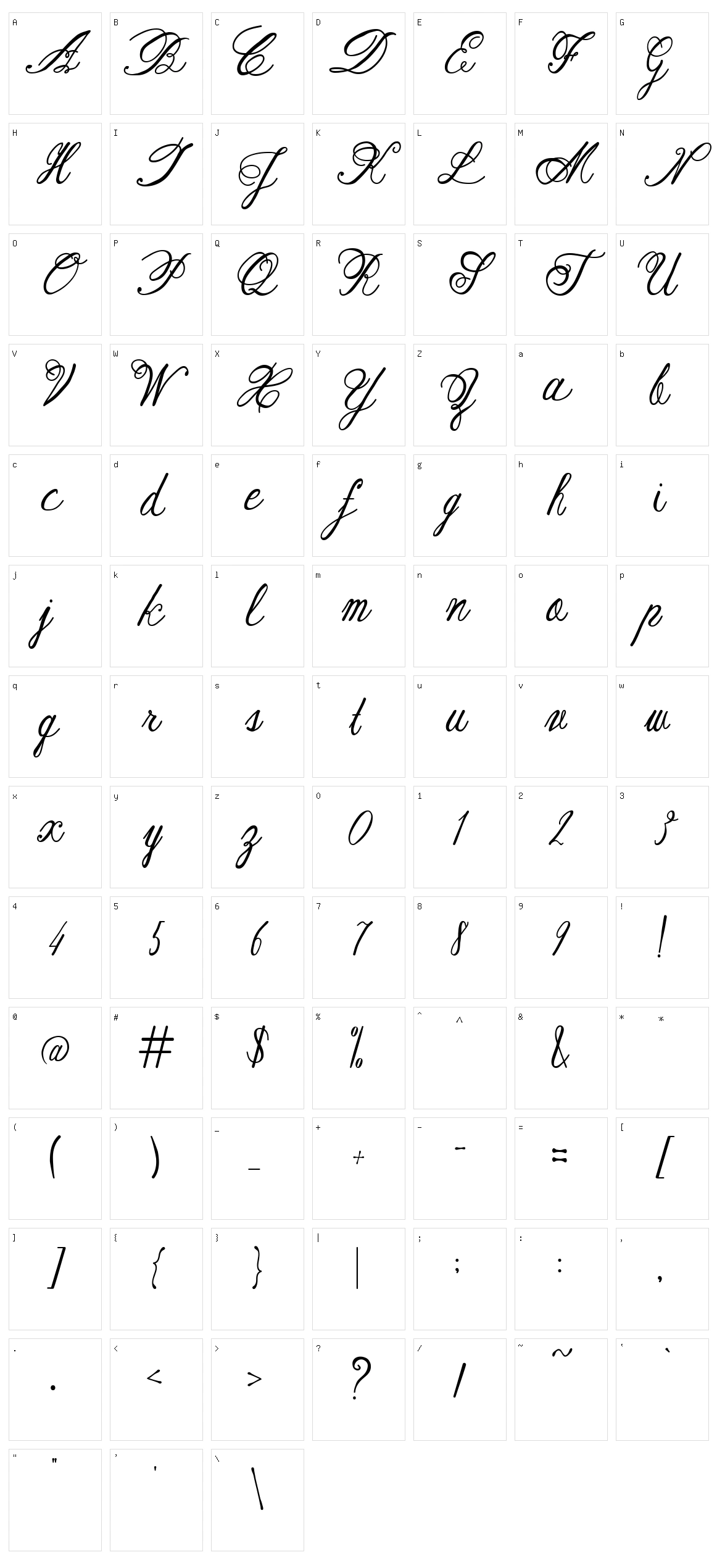
Austie Bost Rest of Our Lives
Description:Austie Bost Rest of Our Lives is flourishy, fancy, but still has the feel of a handdrawn font. It is inspired by old genealogy records, and is dedicated to my cute mom who gave me the idea!